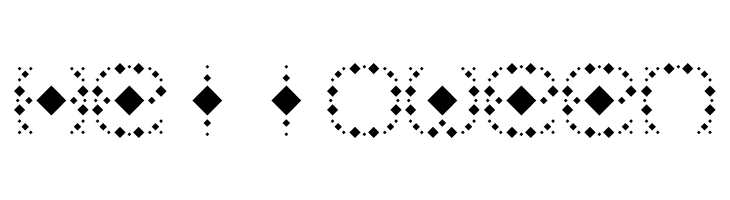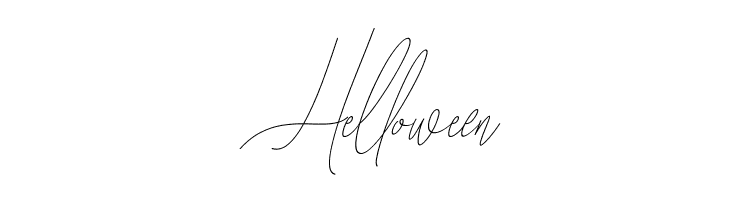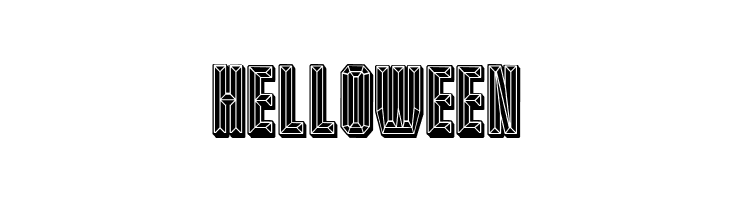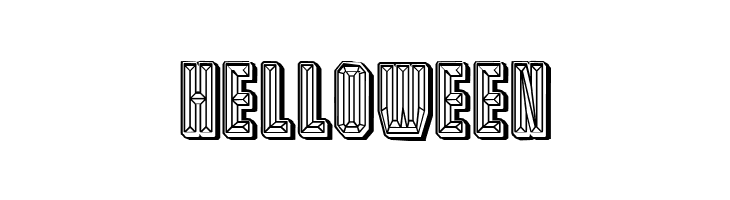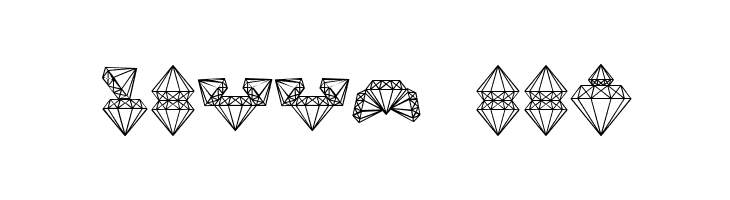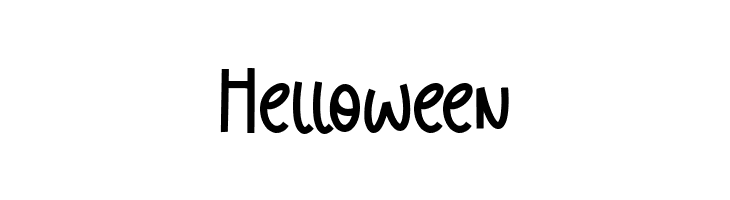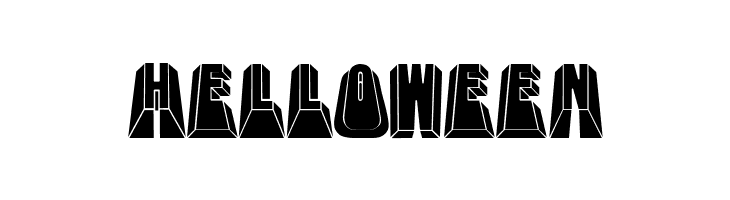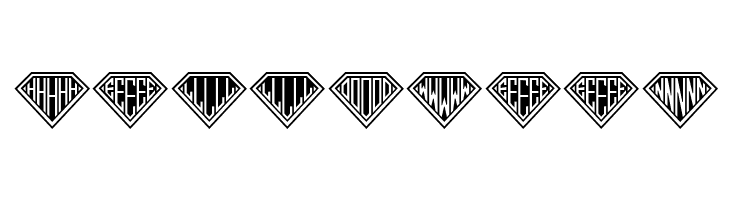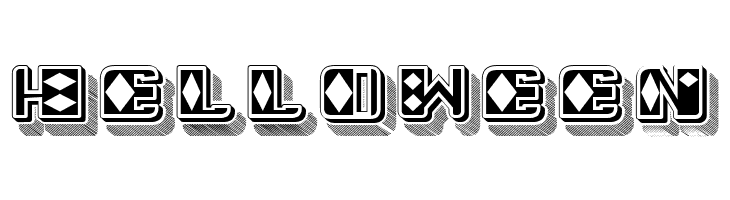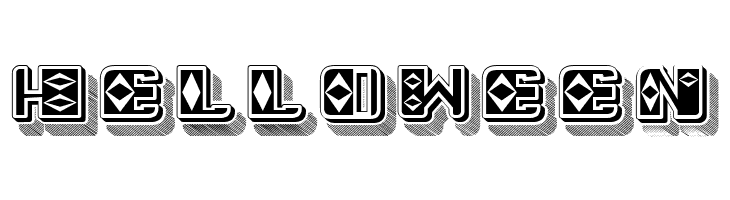
• Diamante Regular
A bold, geometric font with a three-dimensional effect and angular shapes.
• Diamante Signature_Italic
A refined, cursive script font with an elegant italic slant.
• Diamond
• Diamond Blocks Regular
A decorative font with characters resembling intricate diamond shapes.
• Diamond Christmas
Bold, textured handwritten display font with playful character.
• Diamond City Regular
A bold, 3D geometric font with high contrast and a futuristic style.
• Diamond Creek
A bold, rugged font with a vintage, industrial feel.
• Diamond Cut
A geometric, angular font with a modern, futuristic style.
• diamond d
• Diamond Dreams
• Diamond Dust
A distressed, script-style font with a vintage, textured appearance.
• DIAMOND DUST
A bold, angular font with a Gothic-inspired, geometric style.
• Diamond Eyes Regular
A decorative font with characters formed by diamond shapes, offering a modern and artistic look.
• Diamond Fantasy
A geometric font with diamond-shaped cutouts and a modern, edgy style.
• Diamond Fantasy Normal
• Diamond Flat Blacked Regular
A bold, geometric font with a 3D effect and industrial style.
• Diamond Flat Filled Regular
A bold, geometric, and decorative font with a 3D effect and intricate patterns.
• Diamond Flat Regular
A bold, decorative font with a 3D effect and intricate geometric patterns.
• Diamond Girl
A playful, hand-drawn font with rounded, casual characters.
• Diamond Girl Hollow
A playful, hollow, hand-drawn font with rounded edges and a whimsical style.
• Diamond Girl Skinny
A playful, casual handwritten font with rounded, irregular letterforms.
• Diamond Gothic
• Diamond Lady Demo
Handwritten script font with elegant, flowing strokes.